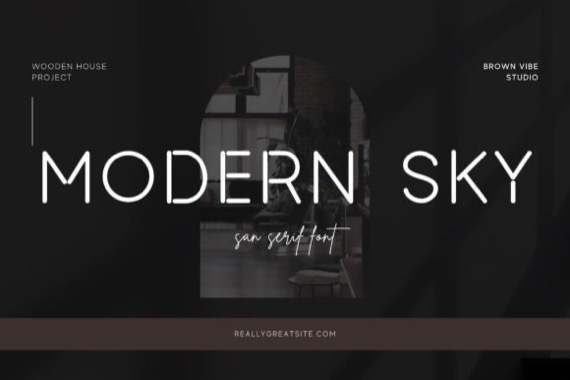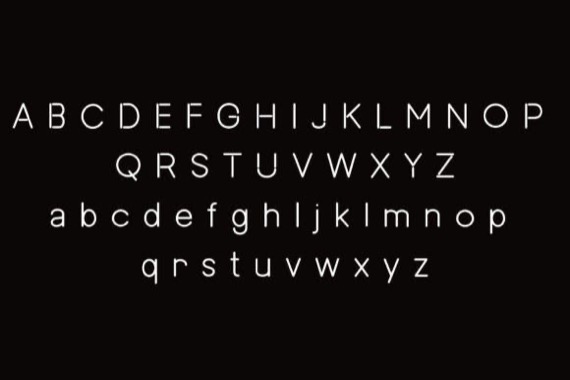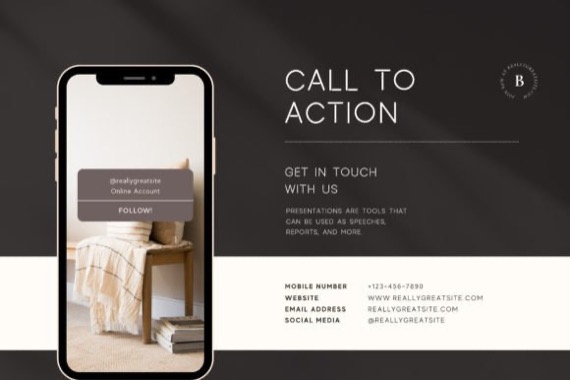
Introducing a fresh and delicate sans serif font from Surachet2548, Modern Sky is a cute, handwritten font. This playful sans-serif will look so good on your invites, cards, logos, and any other fun projects you are working on.
Modern Sky Sans Serif Font
Designer, Publisher: Surachet2548